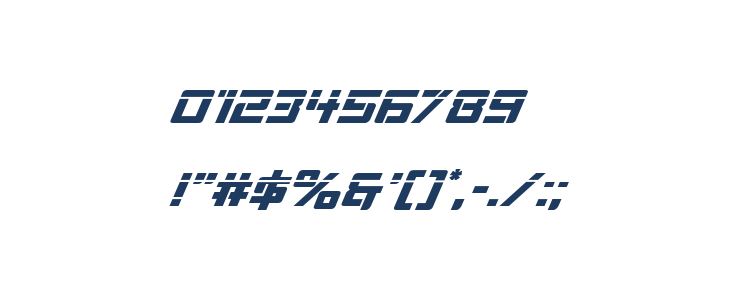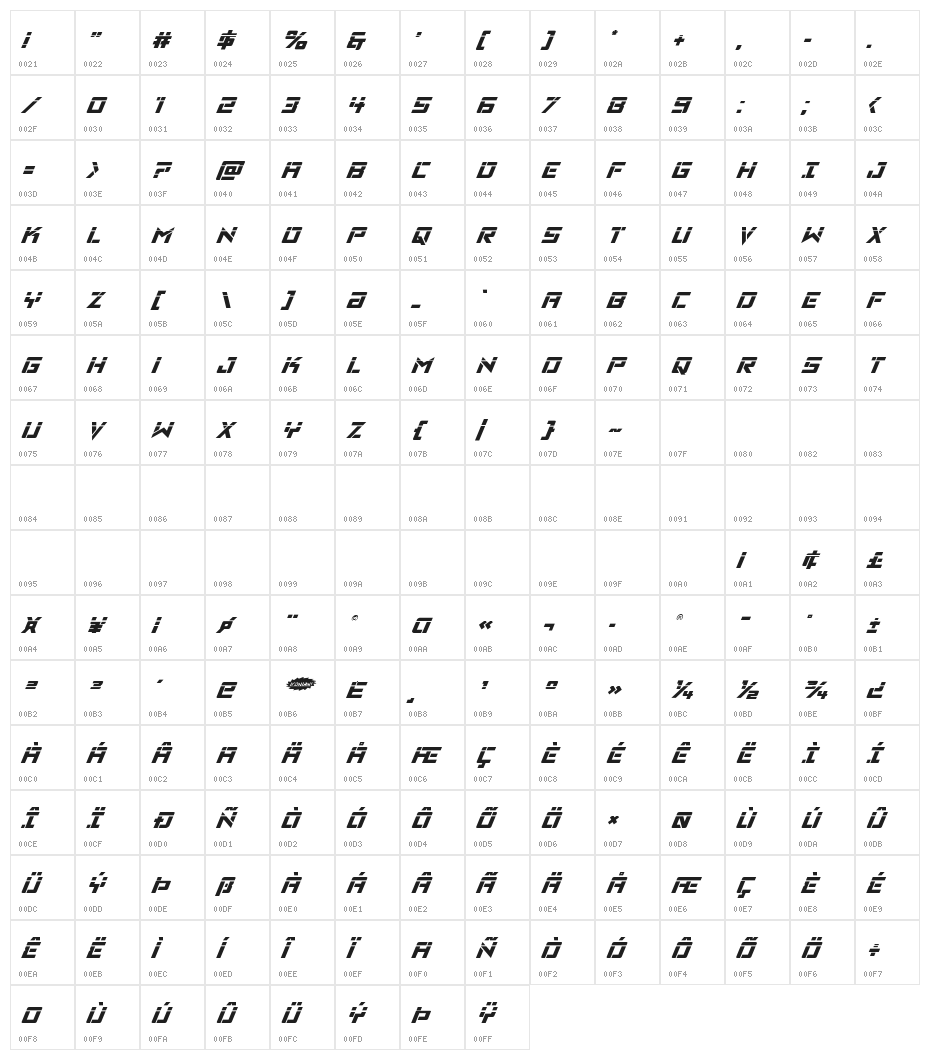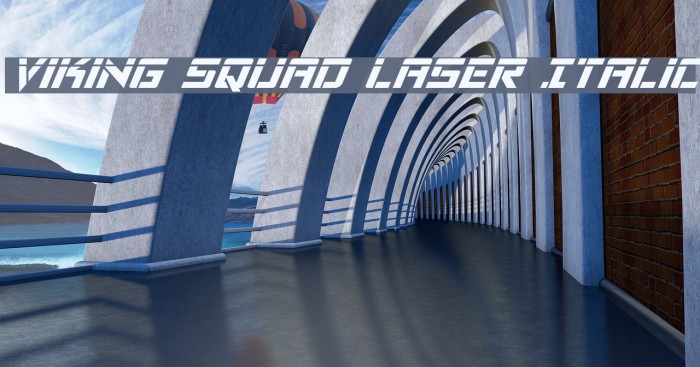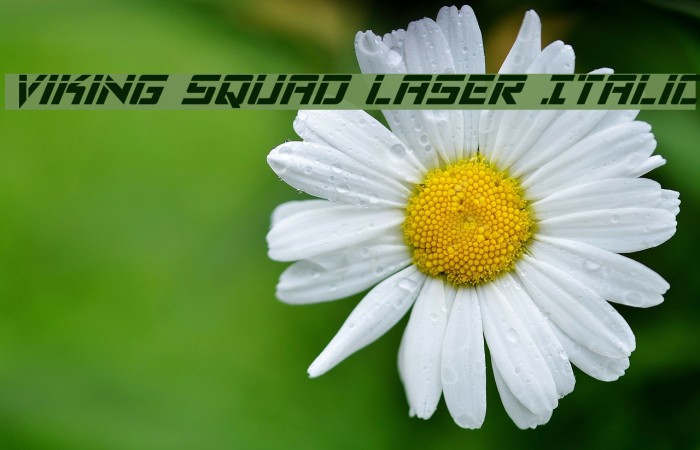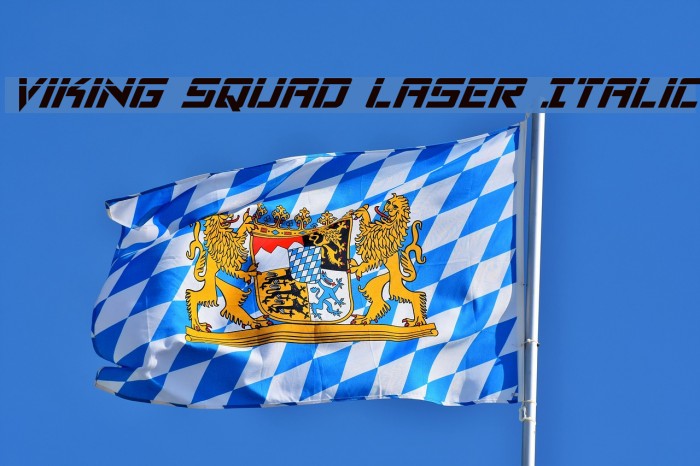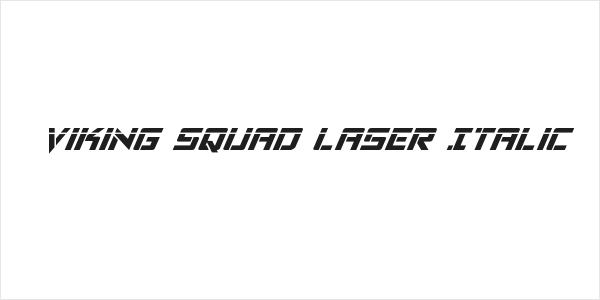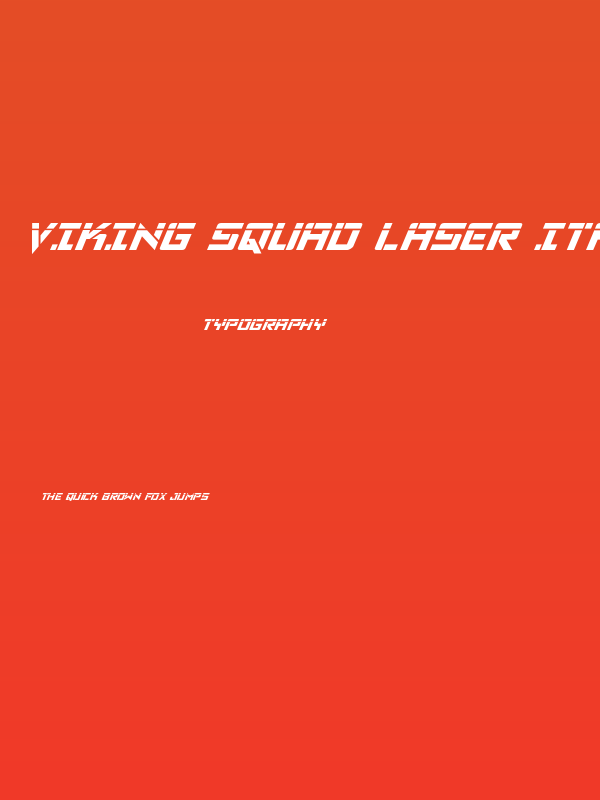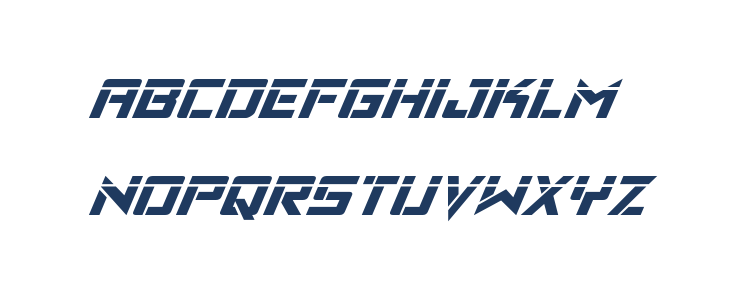
Viking Squad Laser Italic Font
Viking Squad Laser Italic Description
This font features a bold, futuristic design with sharp, angular lines and a distinct italic slant, giving it a dynamic and energetic appearance. The characters are constructed with a geometric precision, creating a sense of movement and speed. The uppercase and lowercase letters maintain a consistent style, while the numbers and special characters complement the overall aesthetic. The font's unique style makes it stand out, suitable for projects that require a modern and edgy look.
| Proposed Projects | Ideal for sci-fi themed designs, video game titles, tech branding, and dynamic posters. |